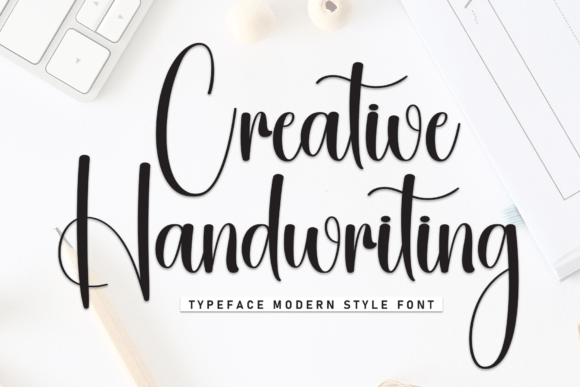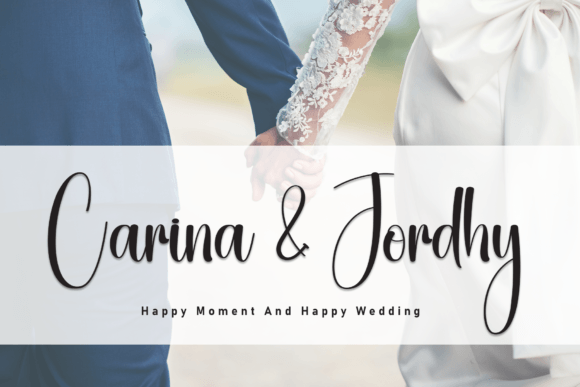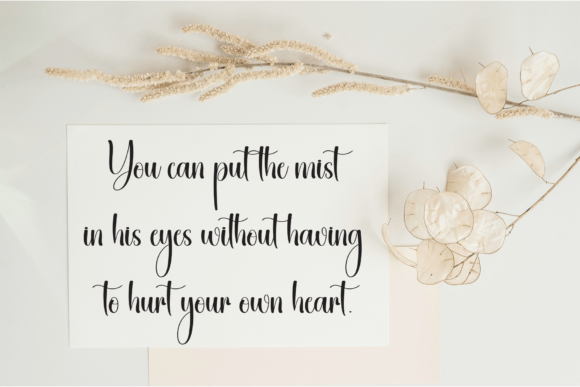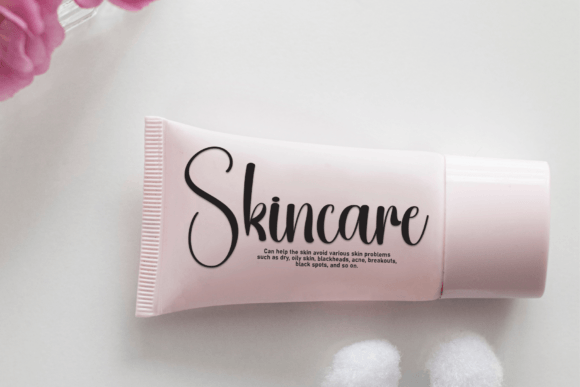
Creative Handwriting Font
About the Creative Handwriting Font
Discover the charm of Creative Handwriting Font. This font is a perfect blend of modern aesthetics and classic appeal. Creative Handwriting is a lovely and timeless handwritten font. It is the best choice for creating eye catching logos, branding and quotes. Every letter has a unique and beautiful touch, which will make your design come alive!
Its expressive, slightly whimsical style is ideal for headlines, short paragraphs, and branding applications where a personal touch is desired. Consider using it for invitations, social media graphics, product packaging, or short-form marketing materials. However, its less-than-optimal legibility makes it unsuitable for body text or extended reading.
Creative Handwriting’s informal charm pairs well with clean sans-serif fonts like Lato or Open Sans for a balanced contrast, or a more geometric sans-serif such as Futura for a modern edge. For a luxurious feel, consider pairing it with a classic serif like Garamond or a delicate script font, but only sparingly to avoid visual clutter.
The overall personality is friendly and approachable yet sophisticated. It works best for brands aiming for a handmade, artisan, or boutique aesthetic, and projects needing a touch of authenticity and warmth.
Creative Handwriting Font Usage Examples
Creative Handwriting Font Example